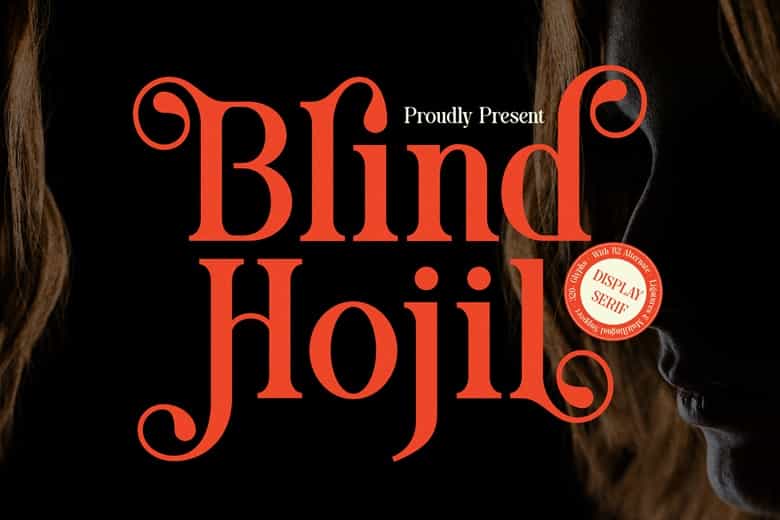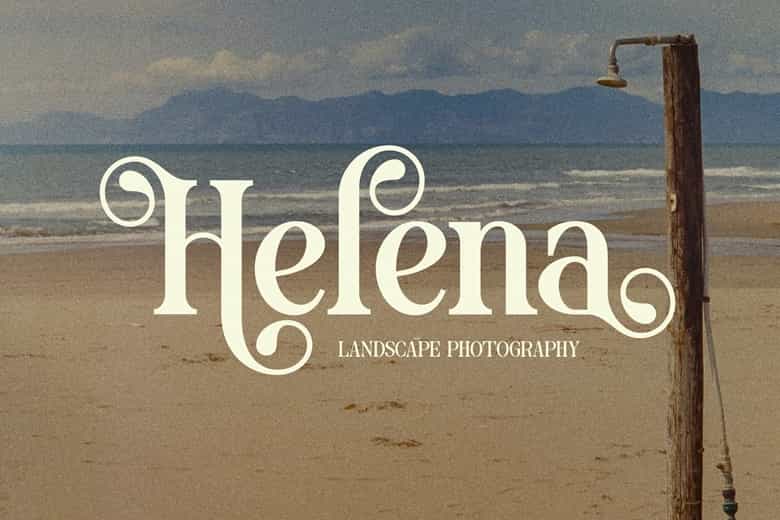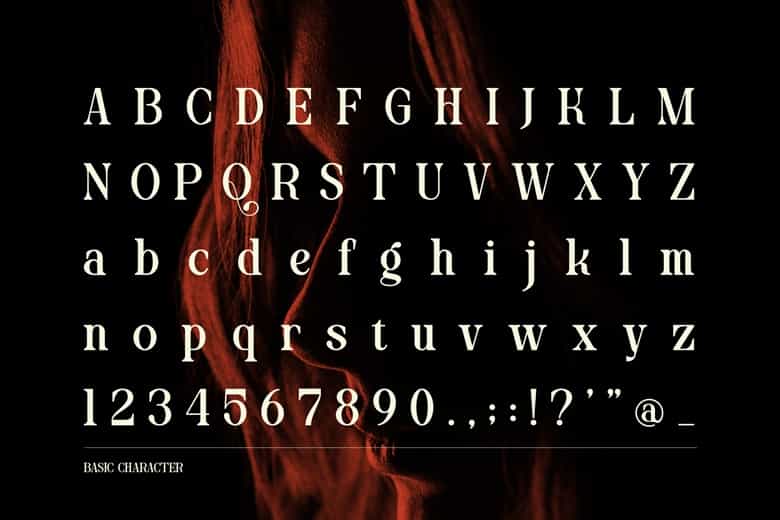
Blind Hojil is a modern serif typeface that is suitable for any projects such as: logos, branding, homeware, product packaging, mugs, quotes, posters, shopping bags, t-shirts, book covers, name card, invitation cards, greeting cards, label and all your other lovely projects that need a serif font touch.